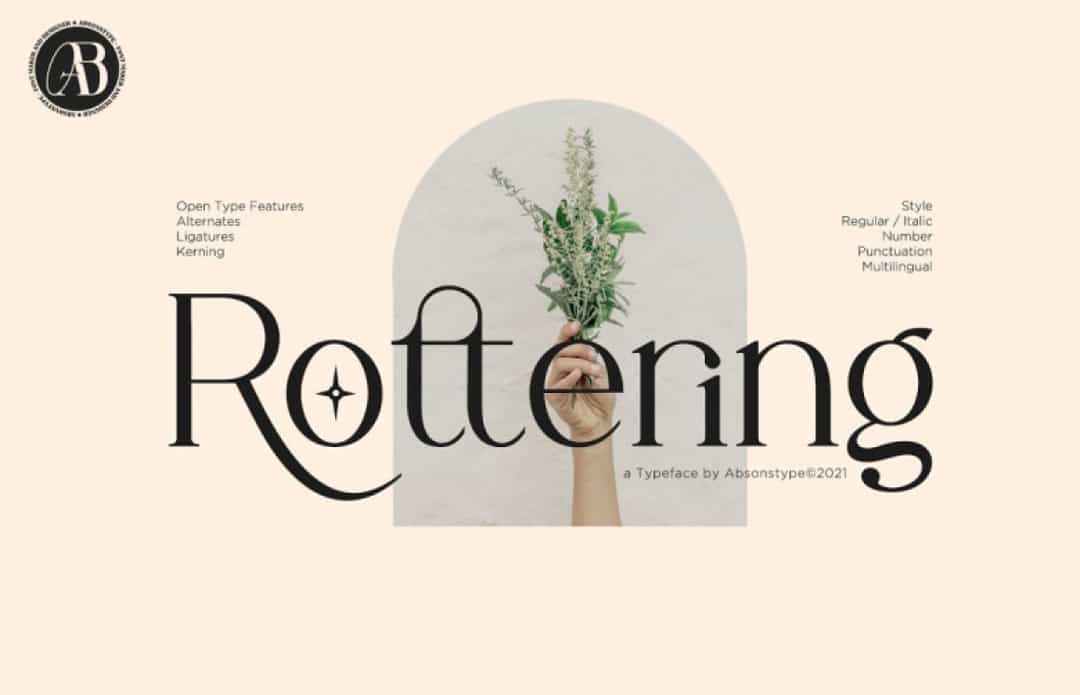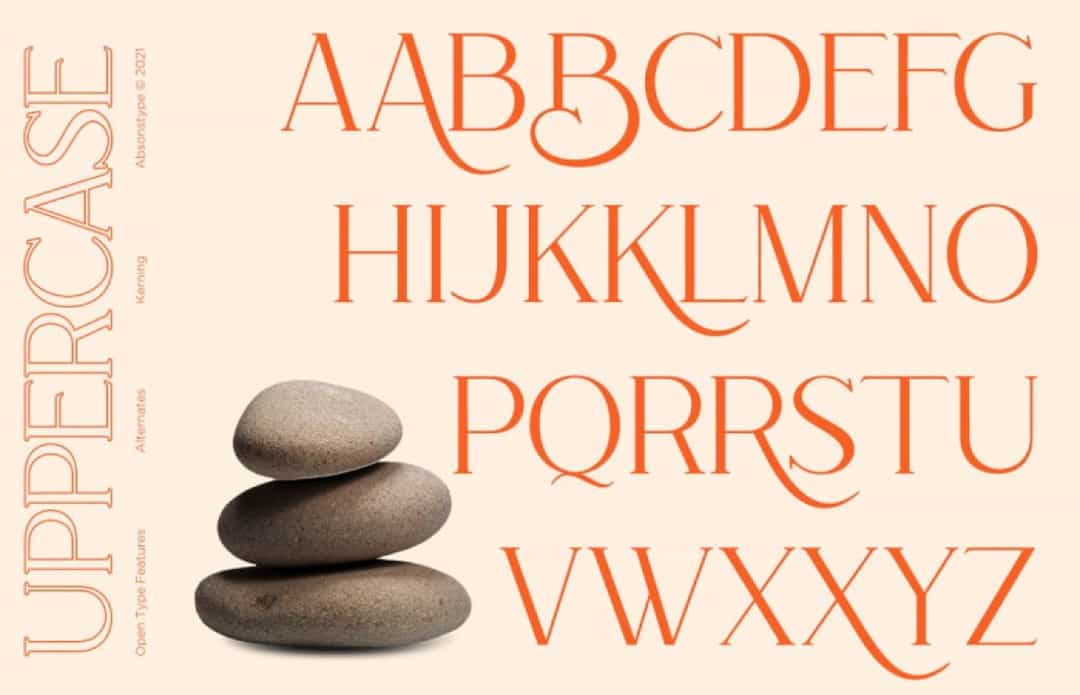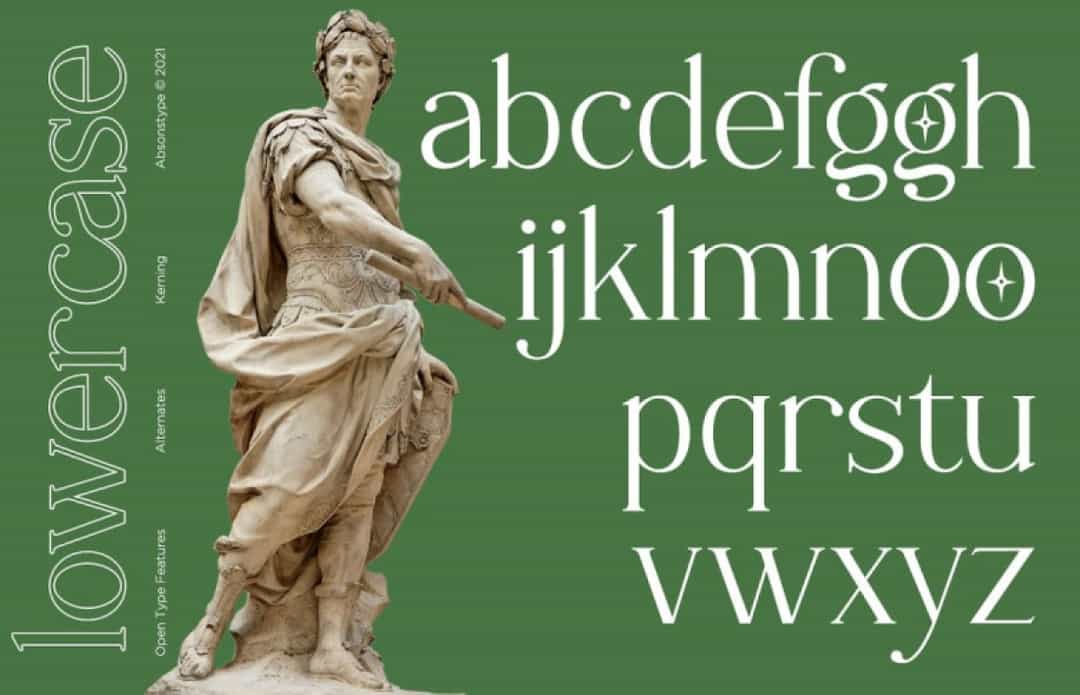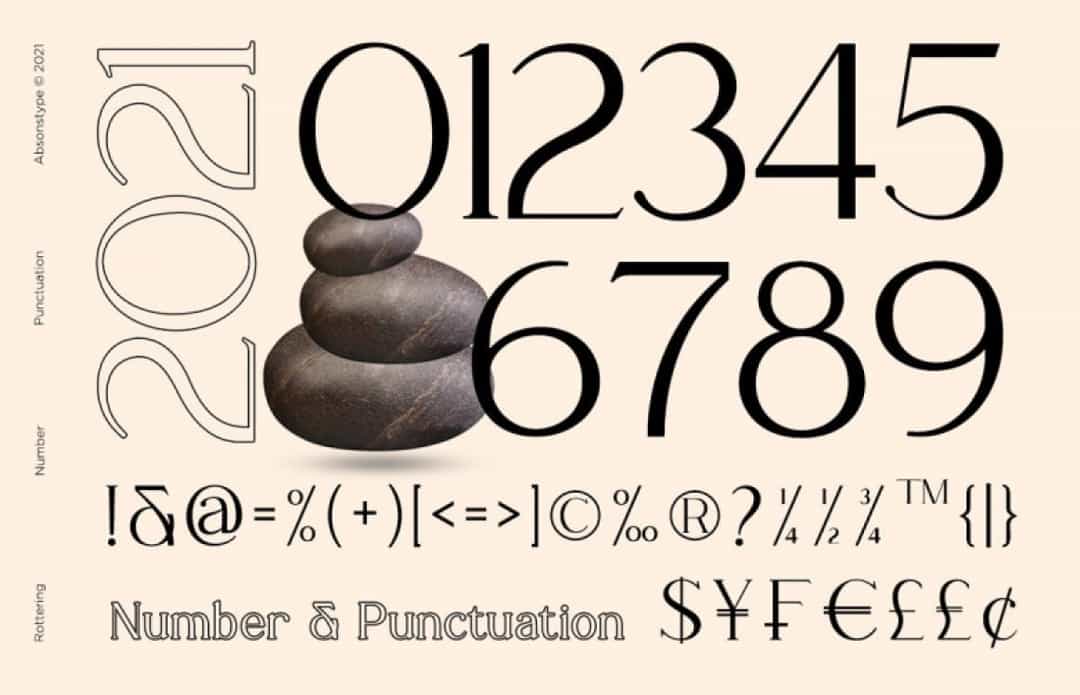
Rottering is a modern and elegant serif font with elegantly balanced uppercase and lowercase letters, featuring ligatures that alternate font styles to create an eye-catching design that works great as headlines posters logos packaging T-shirts and more.